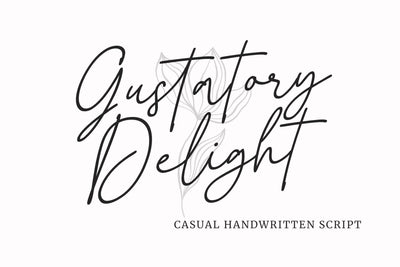
Gustatory Delight - a Signature Font
Gustatory Delight is a perfect handwritten script font that has a modern and authentic look, this font has a simple and unique character in both lowercase and uppercase, this font is perfect for branding, signature, logo, packaging, presentations, planners, resumes, business card, brochures, fashion, t-shirt, wedding invitations, yard signs and more.